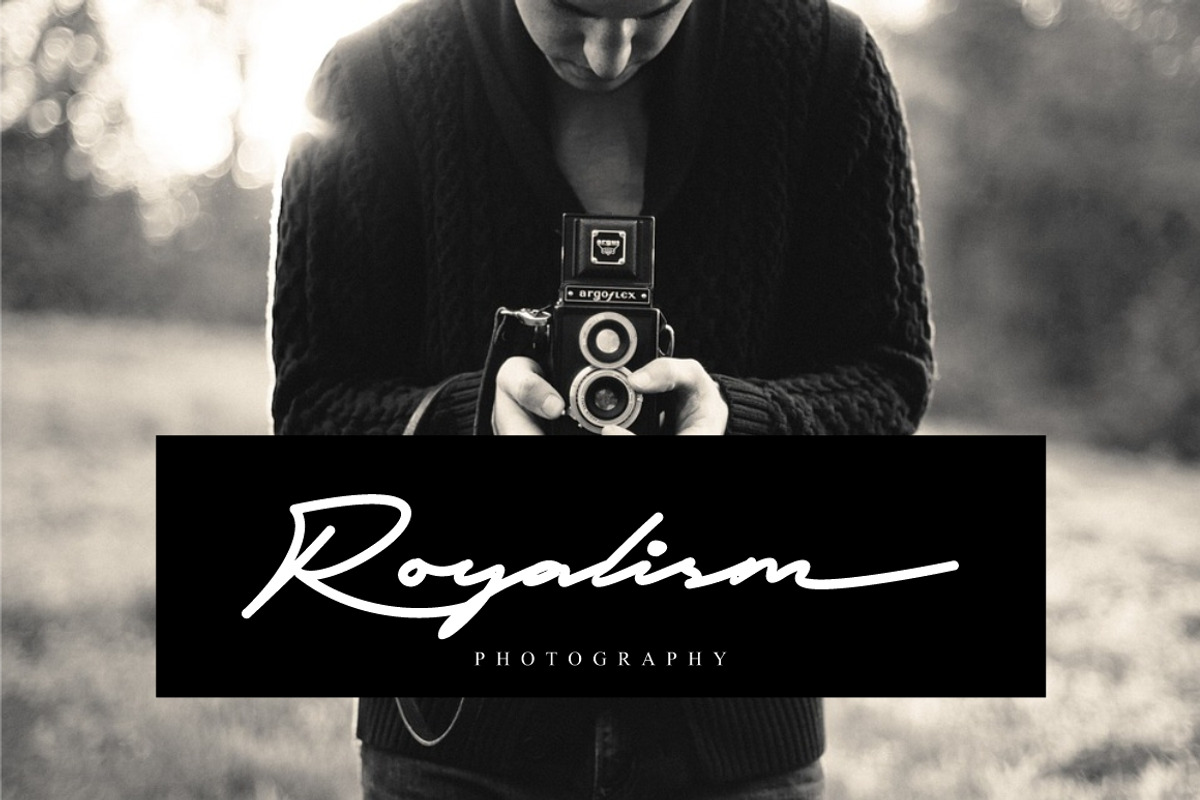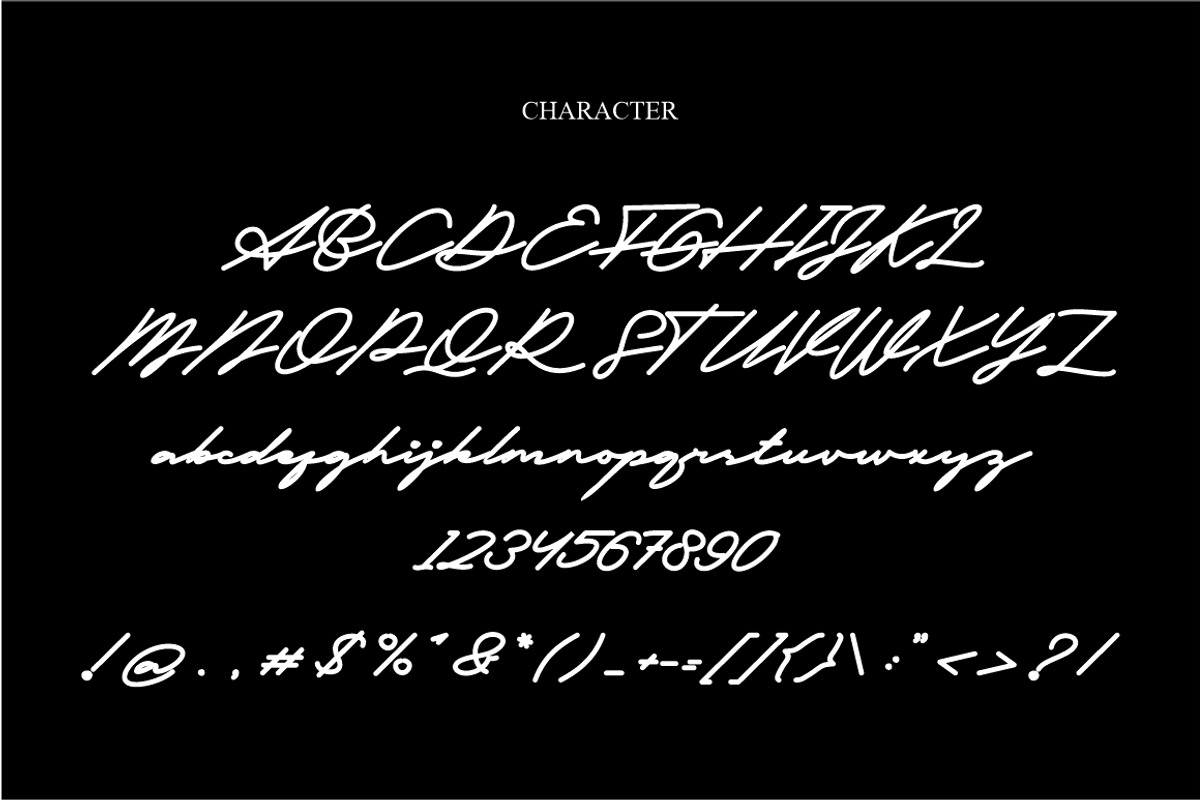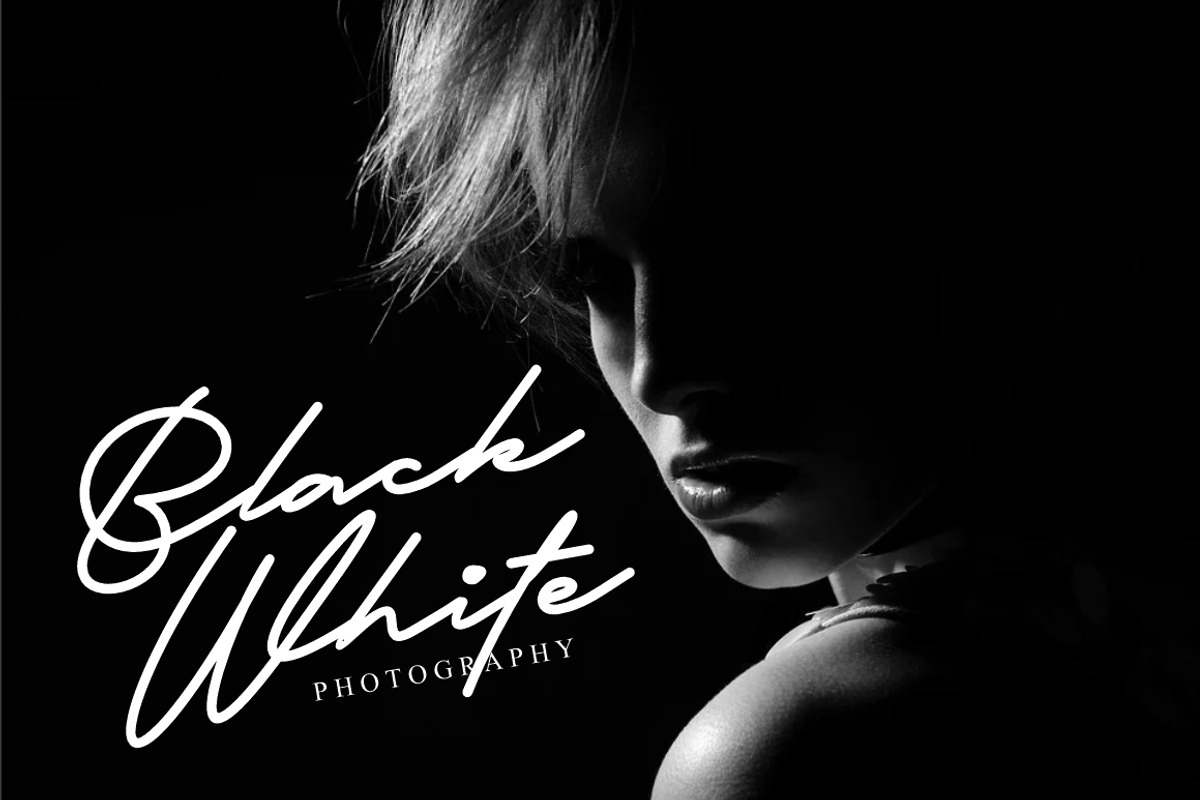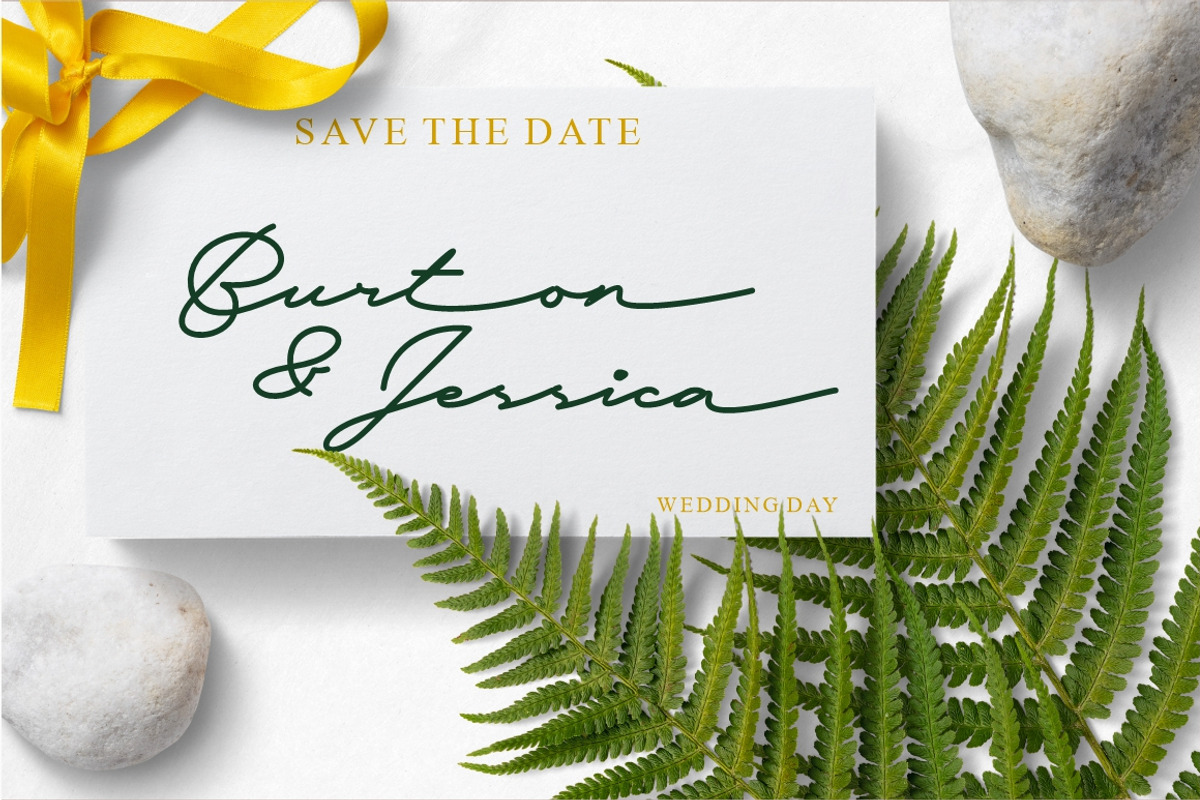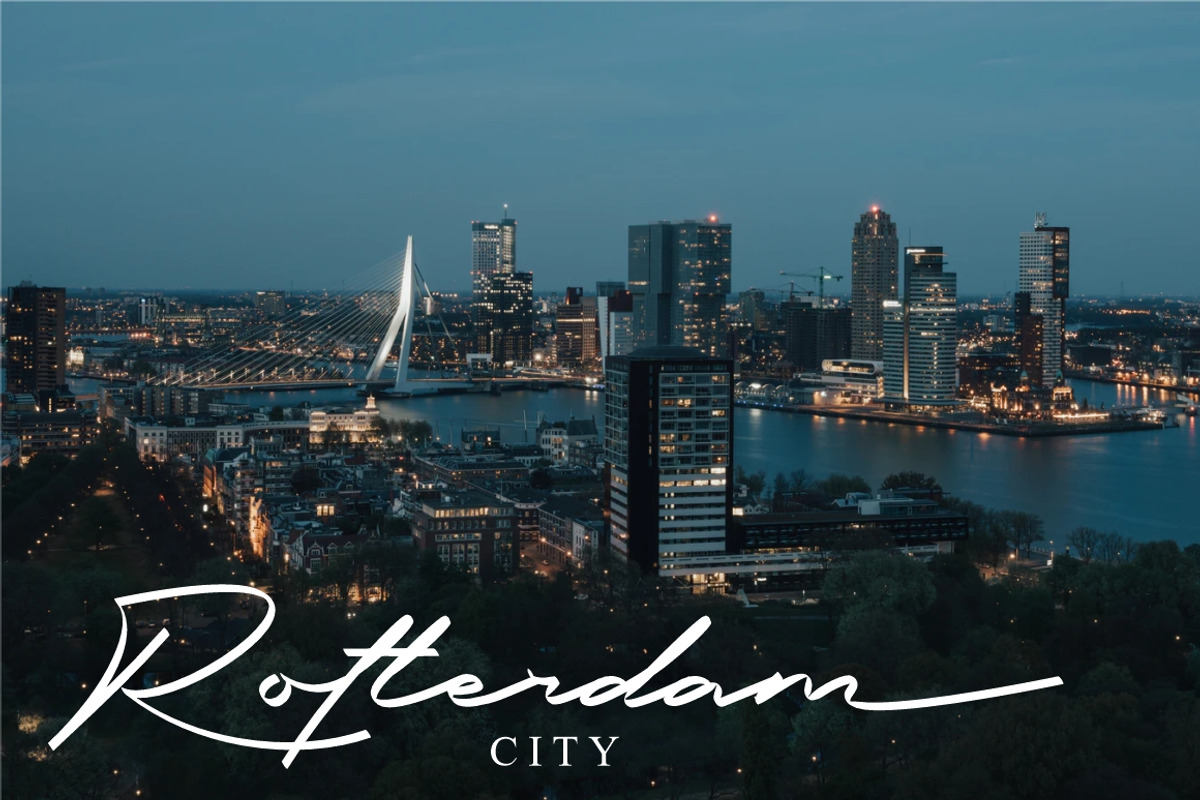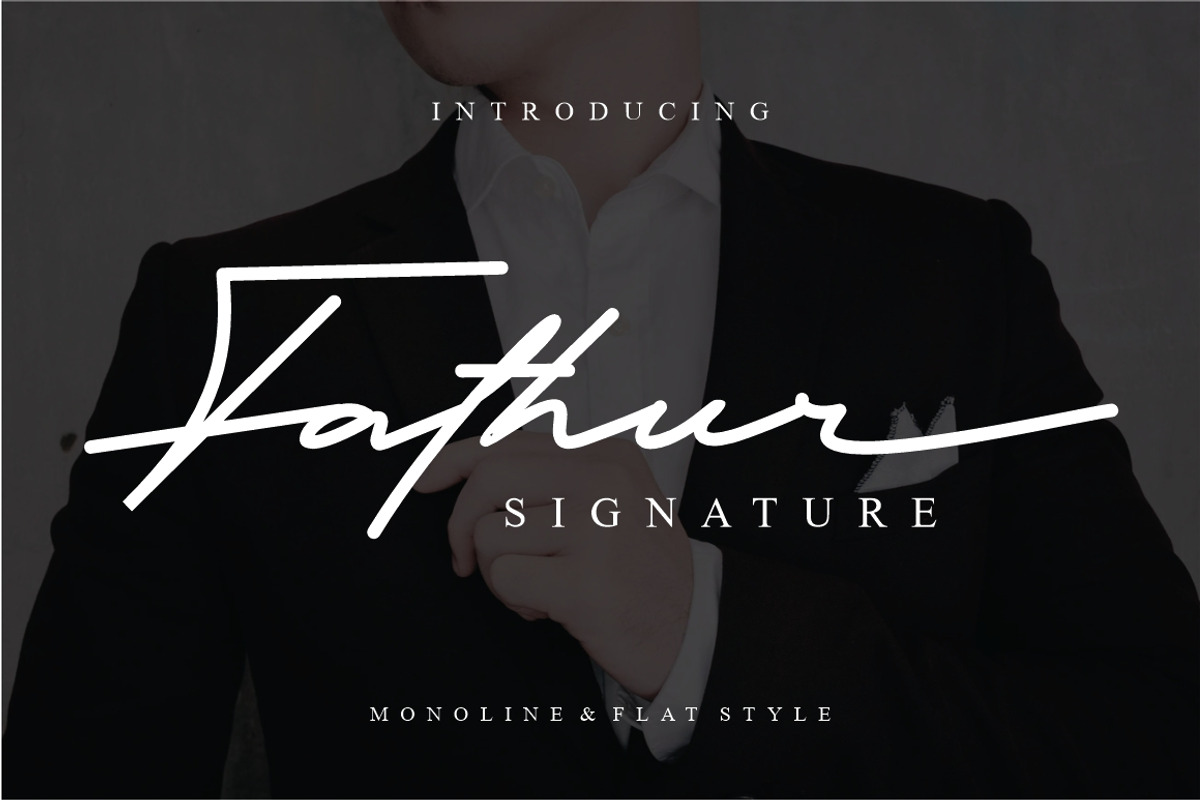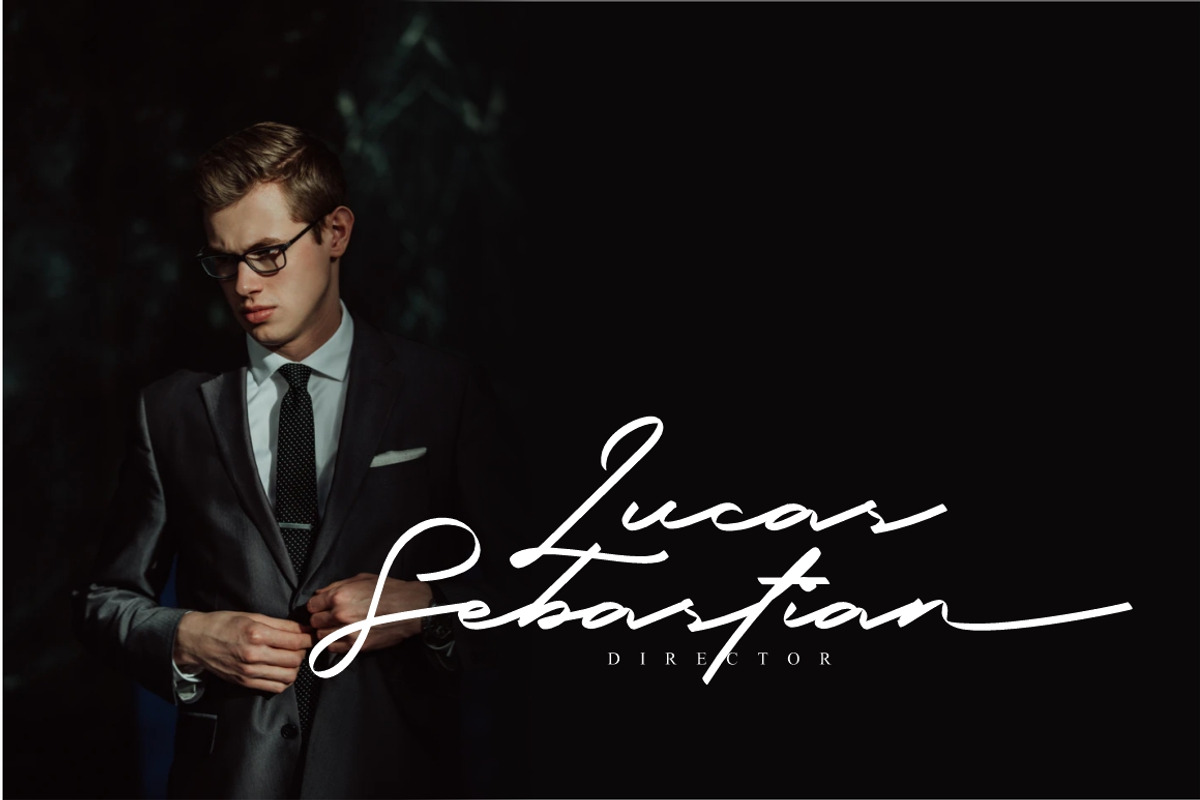
Fathur - Luxury Signature Font
Fathur Signature
Fathur Signature is a luxury and elegant handwritten signature with natural and stylish flow. This font has been designed from recreate natural handwritten letter. This font have two style (line and flat). The Scientist best uses for signature, heading, cover, branding, invitation, label, poster, logos, quotes, product packaging, header, merchandise, social media & greeting cards and many more.